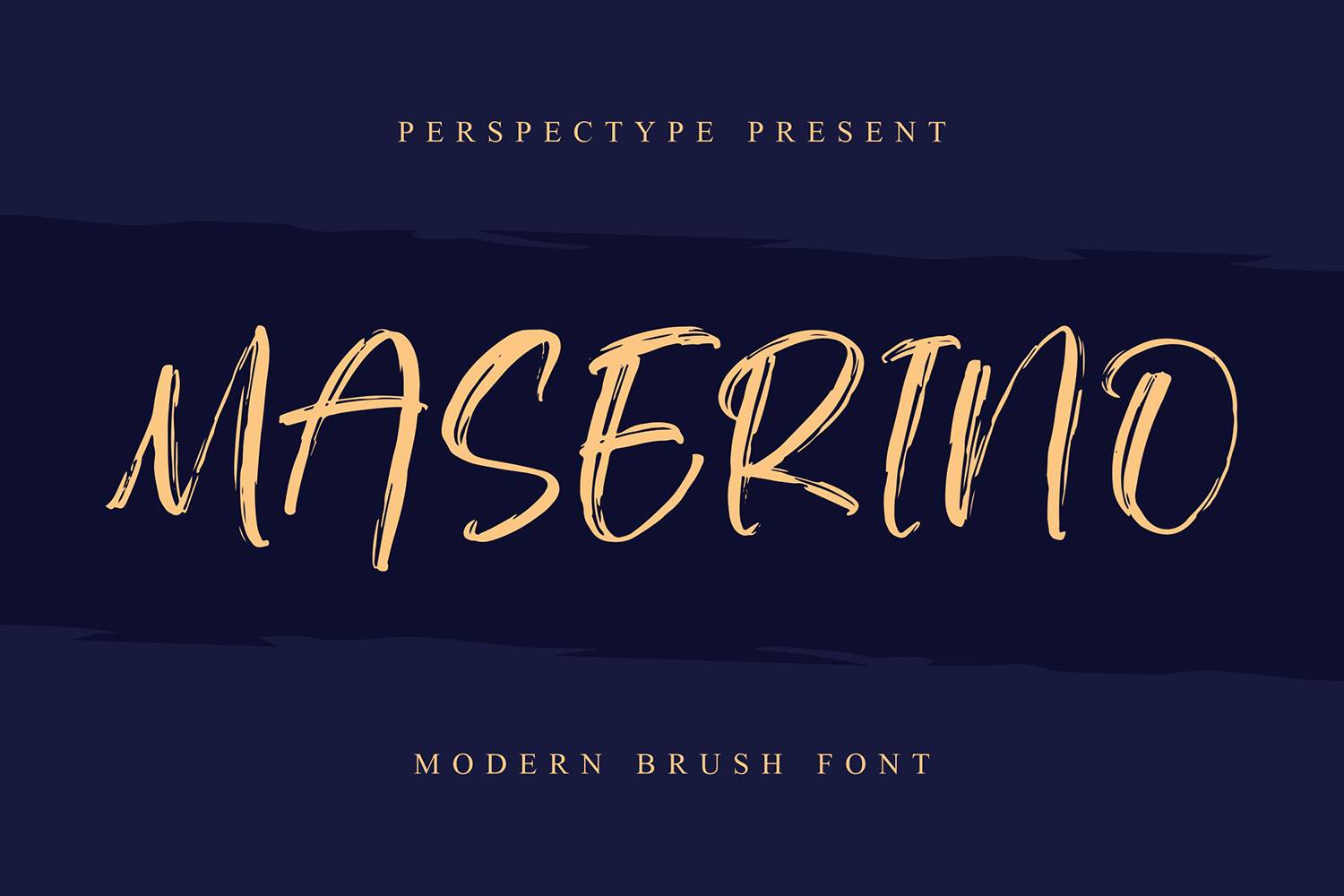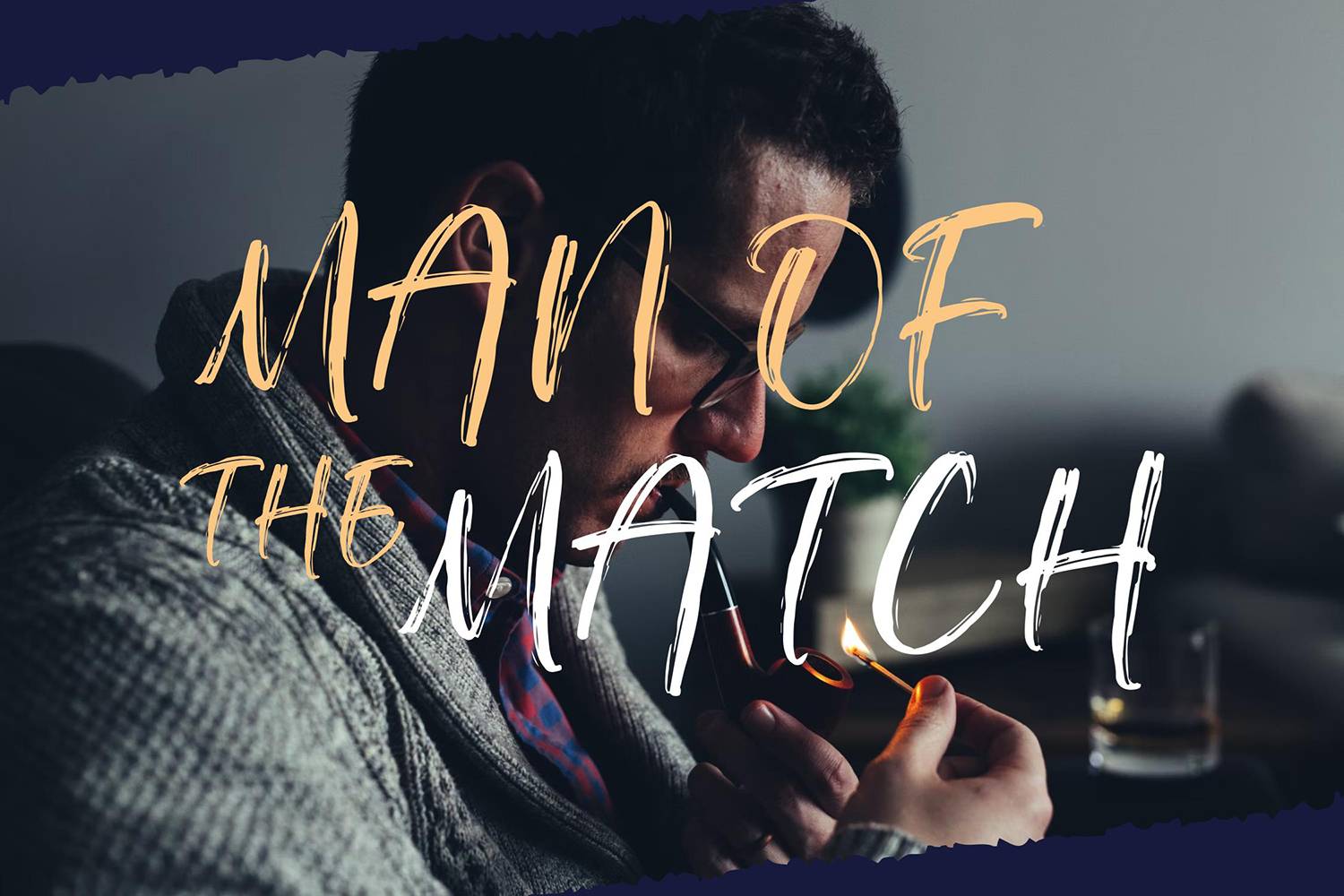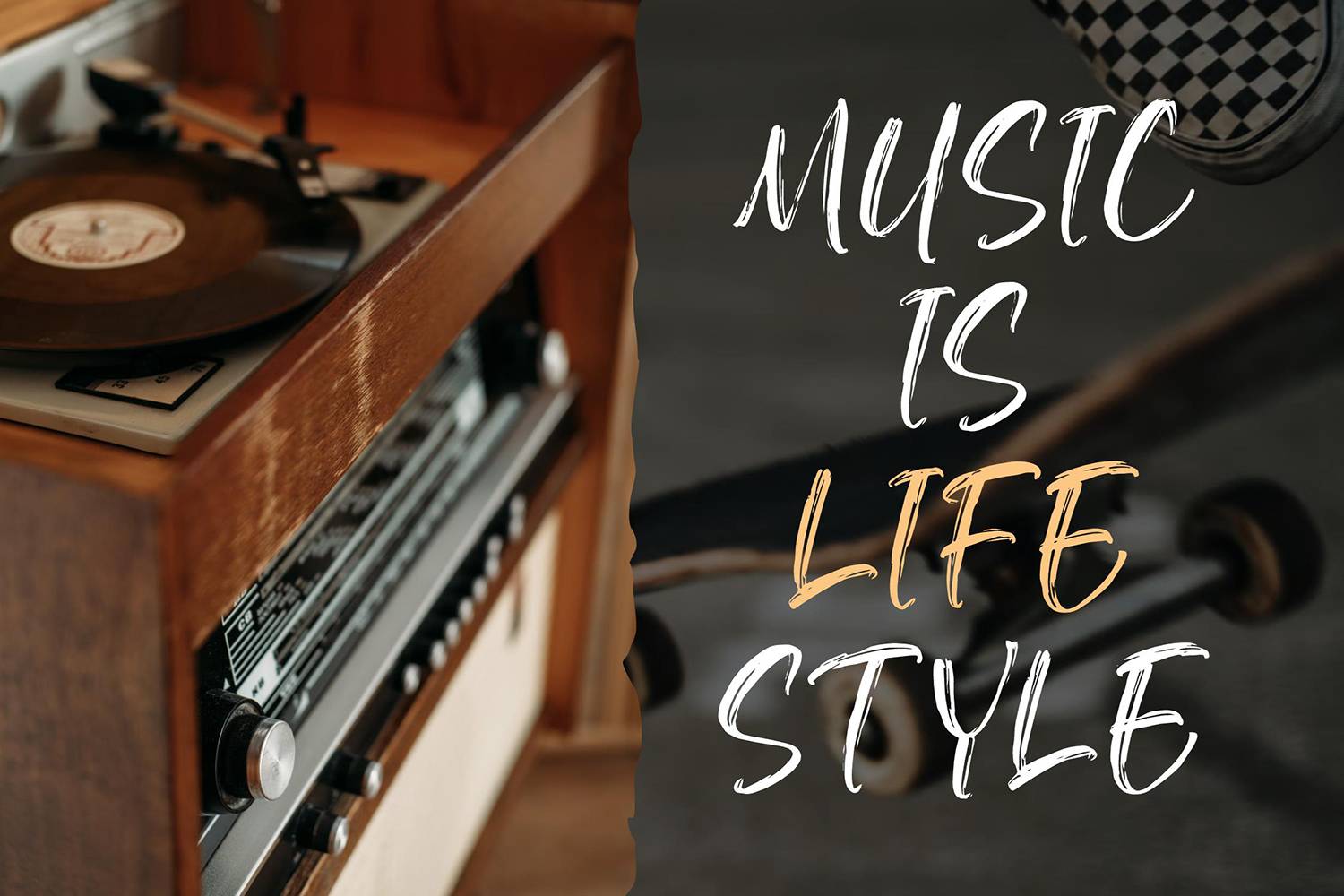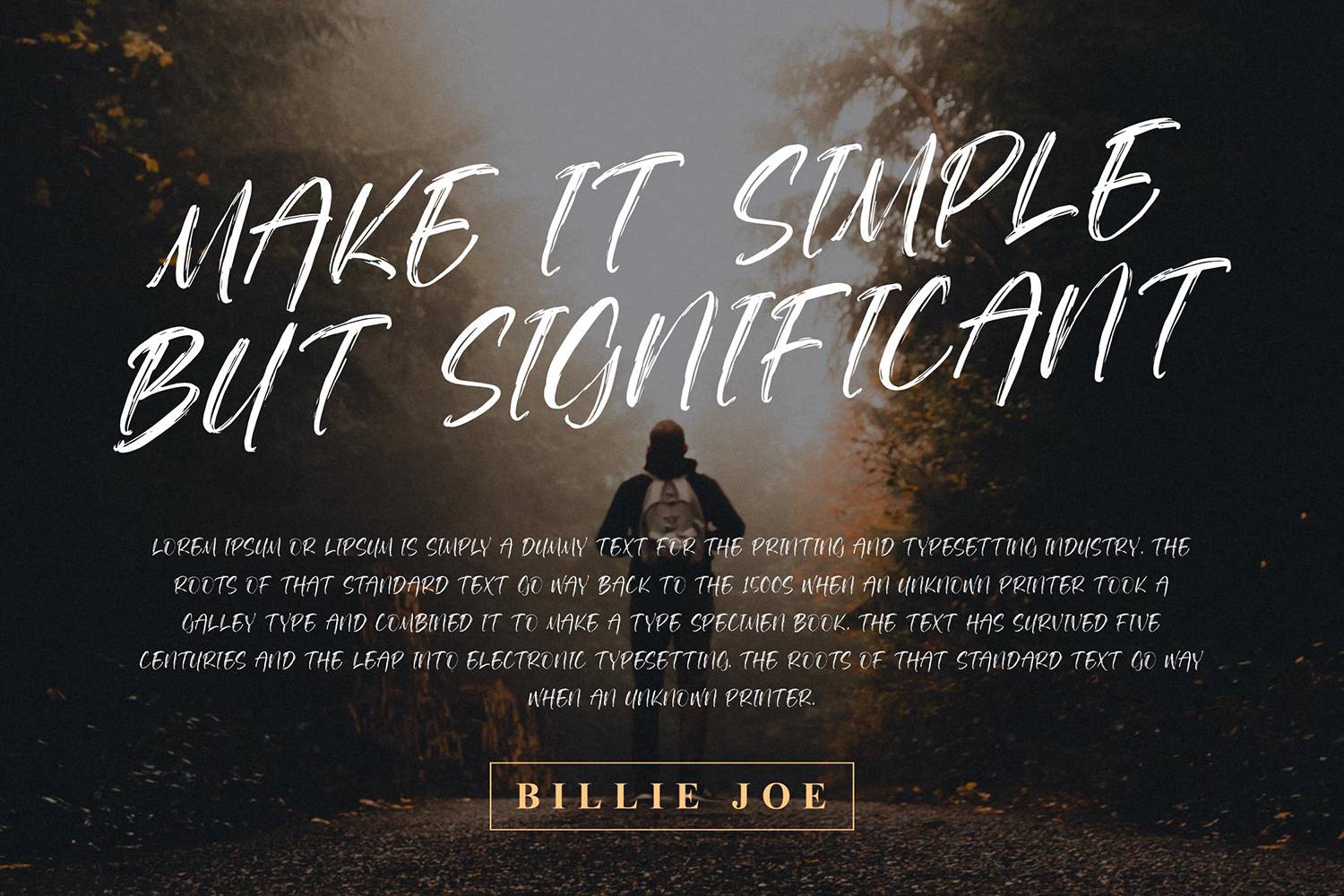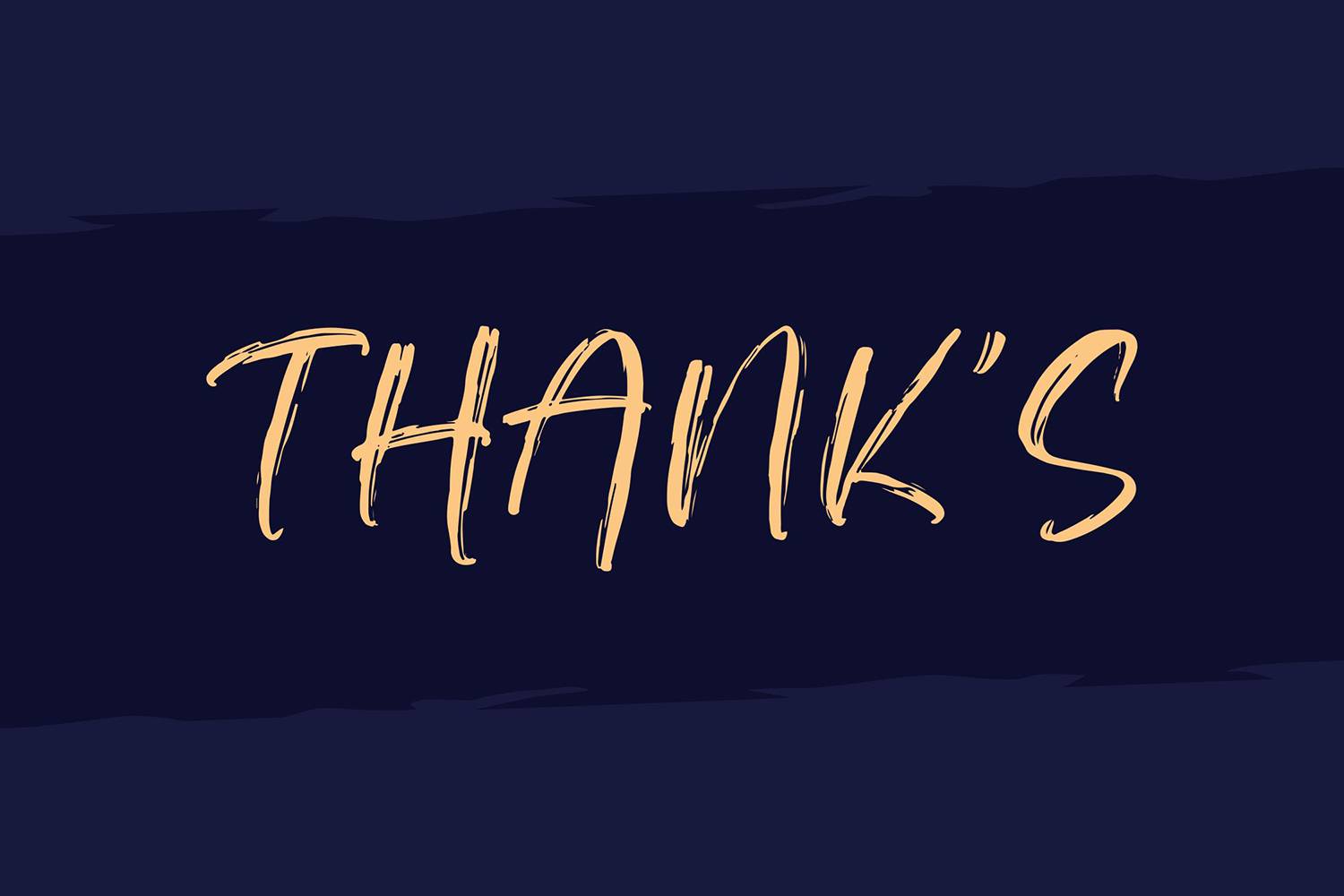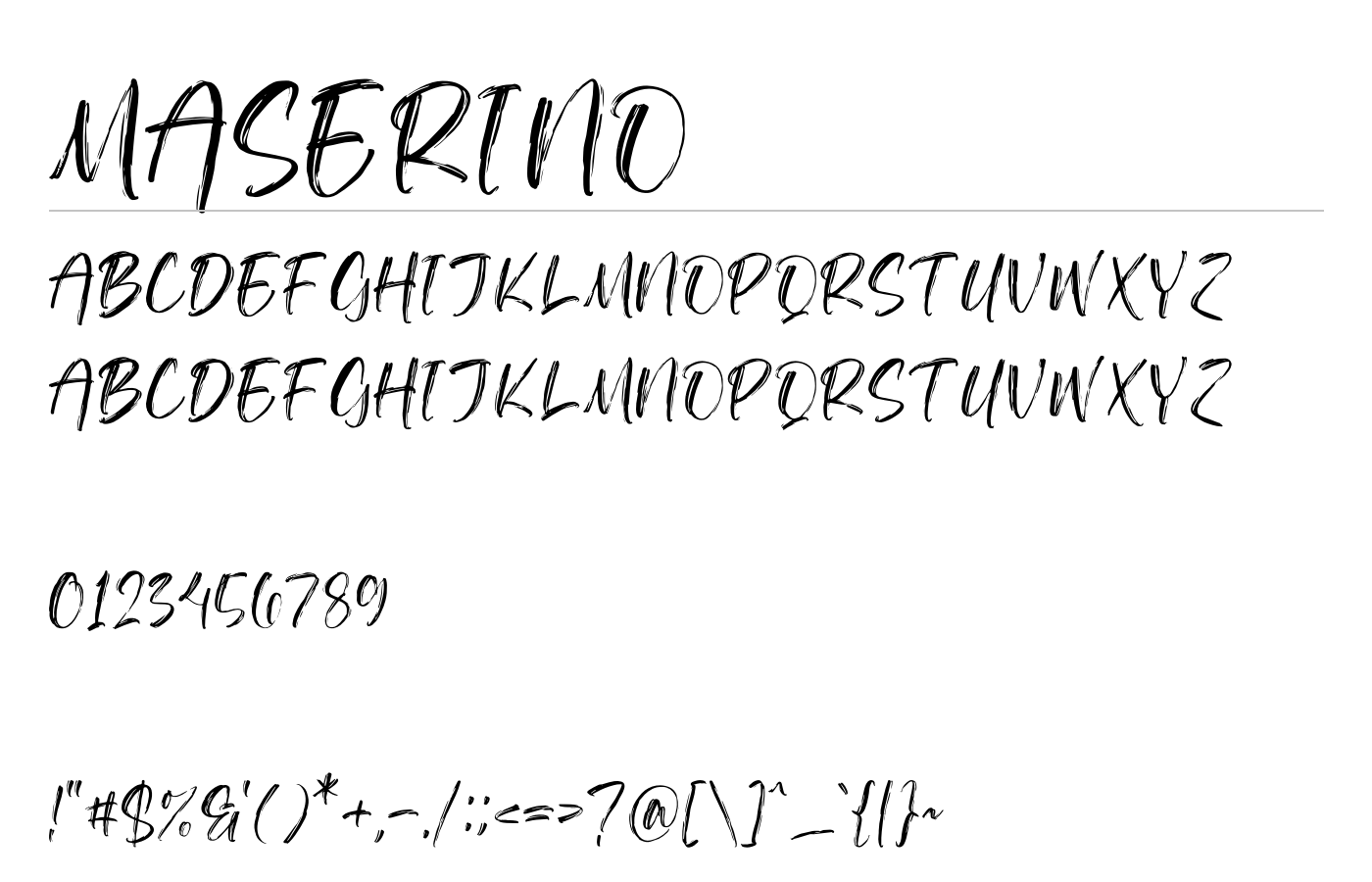
Maserino is an energetic handwritten script font characterized by its rough, brush-like strokes that create a casual yet dynamic feel. With its tall, narrow letterforms and uneven texture, it brings a sense of creativity and movement, making it perfect for artistic branding, informal headlines, and expressive design projects. This font works well where a personal, lively touch is needed to stand out with authenticity and flair.
Maserino Font
About Maserino Font